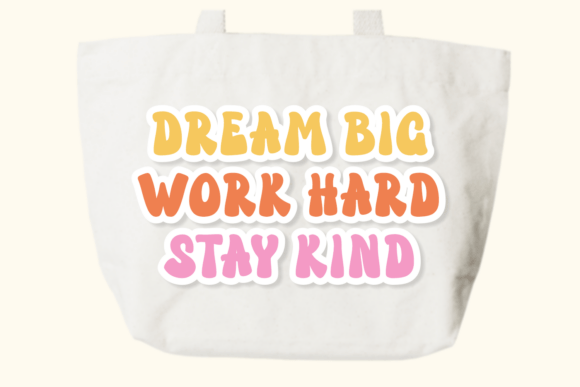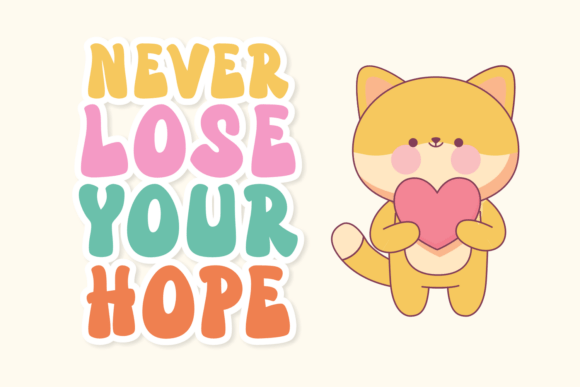
Baby Stand Font: The Ultimate Groovy Display Font for Your Creative Projects
Are you looking for a font that exudes playful energy, retro charm, and a cheerful personality? Look no further than Baby Stand Font! This groovy display font is perfect for designers and crafters who want to add a fun and vibrant touch to their creative projects. In this article, we’ll dive into the features and benefits of Baby Stand Font, and explore how it can elevate your designs to the next level.
What is Baby Stand Font?
Baby Stand Font is a bold and bubbly display font that boasts rounded shapes and a handwritten feel. Its unique style is reminiscent of the fun and carefree vibes of the retro era, making it perfect for projects that require a nostalgic touch. The font’s playful energy is infectious, and it’s sure to bring a smile to your audience’s faces.
Key Features of Baby Stand Font
- Bold and rounded shapes: Baby Stand Font features bold and rounded shapes that give it a unique and playful look.
- Bubbly handwritten feel: The font’s handwritten feel adds a touch of personality and whimsy to your designs.
- Easy to read: Despite its bold and playful style, Baby Stand Font is surprisingly easy to read, making it perfect for a wide range of applications.
- Retro charm: The font’s retro-inspired design makes it perfect for projects that require a nostalgic touch.
Use Cases for Baby Stand Font
Baby Stand Font is a versatile font that can be used in a wide range of creative projects, including:
- Children’s projects: The font’s playful and fun style makes it perfect for children’s books, educational materials, and kids’ websites.
- Posters and flyers: Baby Stand Font is ideal for creating eye-catching posters and flyers that require a bold and attention-grabbing headline.
- Branding and packaging: The font’s unique style makes it perfect for branding and packaging projects that require a fun and playful touch.
- T-shirts and apparel: Baby Stand Font is a great choice for designing T-shirts, hoodies, and other apparel that requires a bold and playful design.
- Greeting cards and invitations: The font’s handwritten feel makes it perfect for creating personalized greeting cards and invitations.
- Stickers and social media graphics: Baby Stand Font is ideal for creating fun and playful stickers and social media graphics that require a bold and attention-grabbing design.
Why Choose Baby Stand Font?
So why choose Baby Stand Font for your creative projects? Here are just a few reasons:
- Adds a joyful and nostalgic vibe: Baby Stand Font instantly brightens up any creative work with its playful and retro-inspired design.
- Perfect for kids and retro-inspired designs: The font’s playful style makes it perfect for projects that require a fun and youthful touch.
- Radiates positivity: Baby Stand Font’s bold and cheerful style radiates positivity and energy, making it perfect for projects that require a uplifting message.
- Unforgettable designs: With Baby Stand Font, you can create designs that are truly unforgettable and leave a lasting impression on your audience.
In conclusion, Baby Stand Font is a groovy display font that’s perfect for designers and crafters who want to add a fun and playful touch to their creative projects. With its bold rounded shapes, bubbly handwritten feel, and retro charm, it’s ideal for a wide range of applications, from children’s projects to branding and packaging. Whether you’re designing for kids, creating retro-inspired layouts, or just want a font that radiates positivity, Baby Stand Font is the perfect choice to make your projects fun, groovy, and unforgettable.